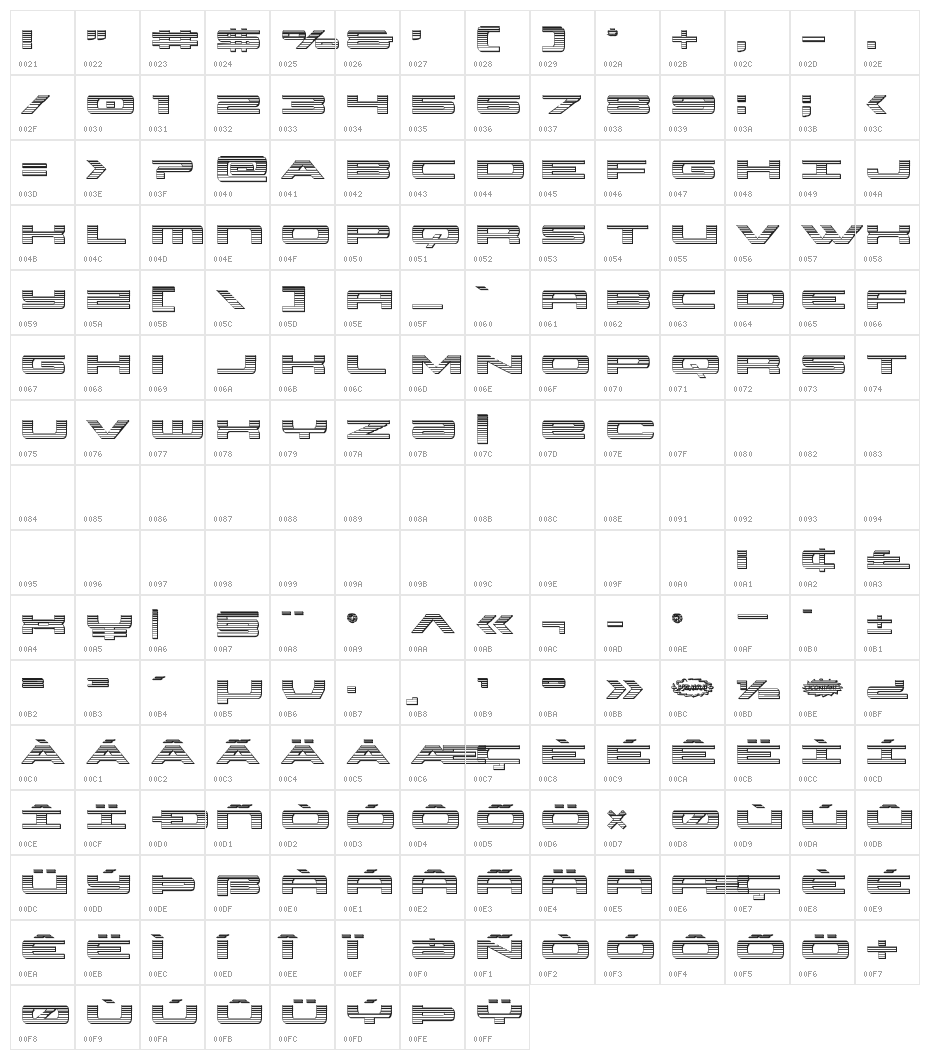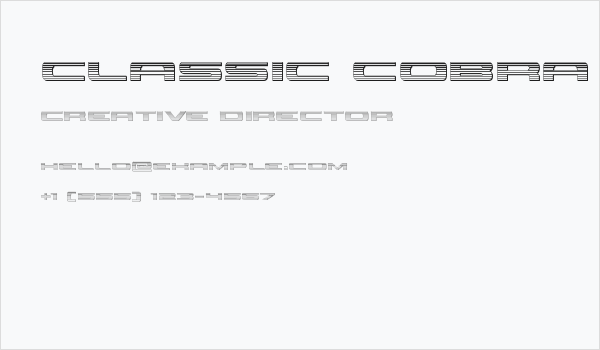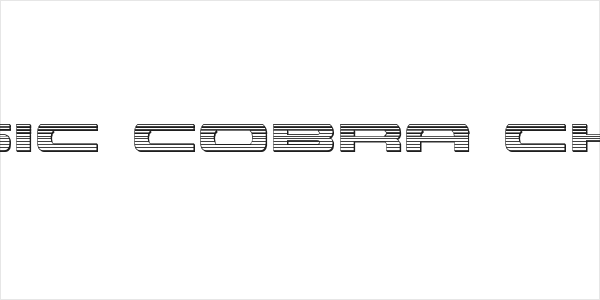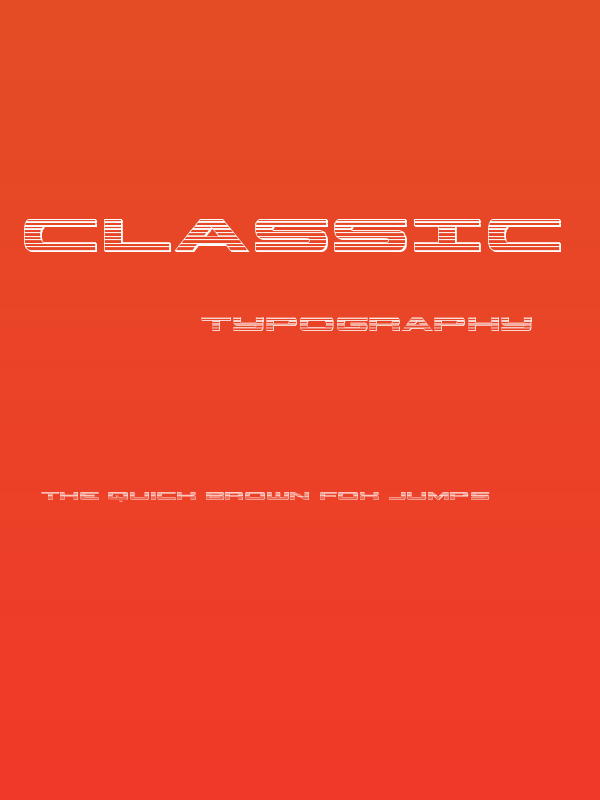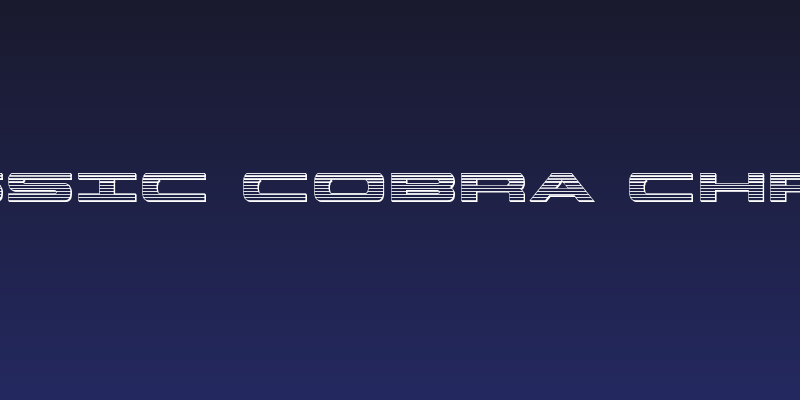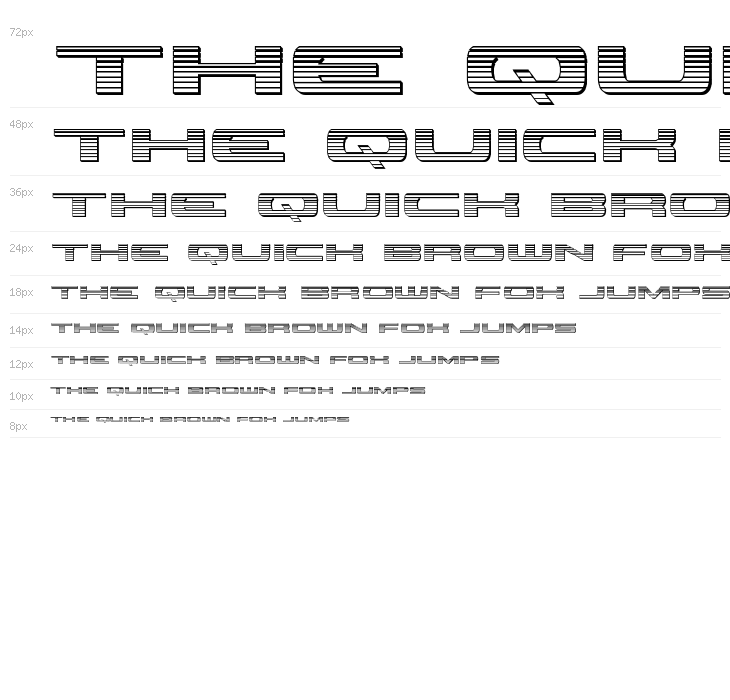
Classic Cobra Chrome Font
Classic Cobra Chrome Description
This font features a bold, futuristic design with a distinct chrome-like appearance. Each character is crafted with multiple horizontal lines that create a sense of depth and dimension, reminiscent of classic car emblems or retro-futuristic aesthetics. The uppercase and lowercase letters maintain a consistent style, with sharp angles and clean lines that enhance readability while adding a unique visual flair. The numerals and special characters follow the same design principles, ensuring a cohesive look across all text elements. This font is ideal for projects that require a modern yet nostalgic touch, combining elements of vintage design with contemporary execution.
| Overall Style | Futuristic, Retro |
| Proposed Projects | Ideal for automotive branding, retro-themed posters, video game titles, and sci-fi book covers. |